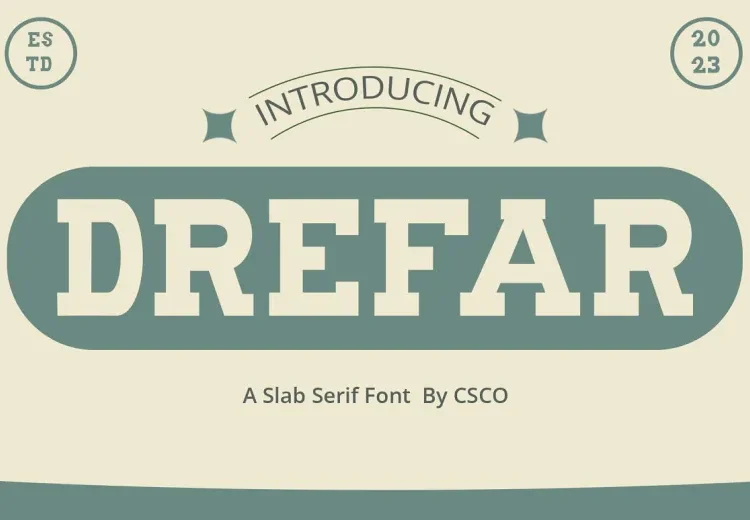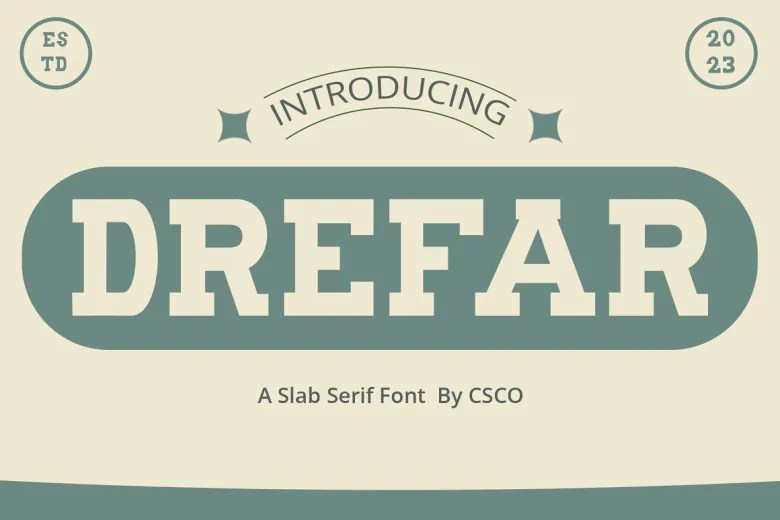
Drefar Font
in Slab Serif
Drefar is a bold and impactful slab serif font designed to merge masculine and casual elements into a striking typography solution. Its eye-catching design ensures that your content stands out and makes a powerful statement, whether you’re working on headlines, posters, or any other display project.
Key Features:
• Bold and Confident: Merges masculine strength with casual flair, ideal for making a statement.
• Versatile Use: Perfect for headlines, posters, and other design projects where impact is crucial.
• Powerful Typography: Ensures your message is delivered with precision and power.